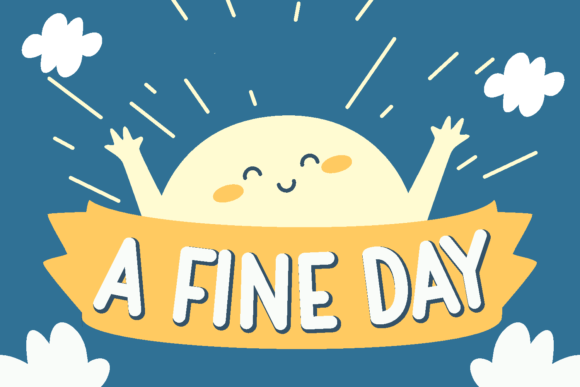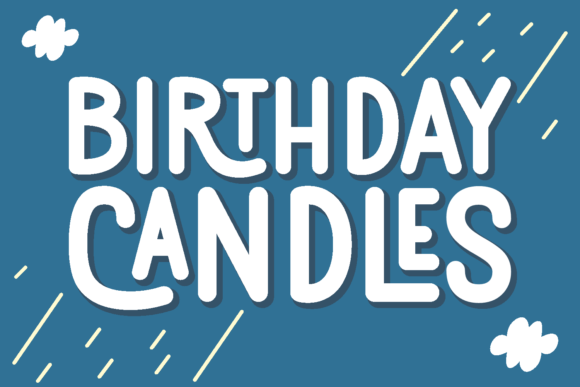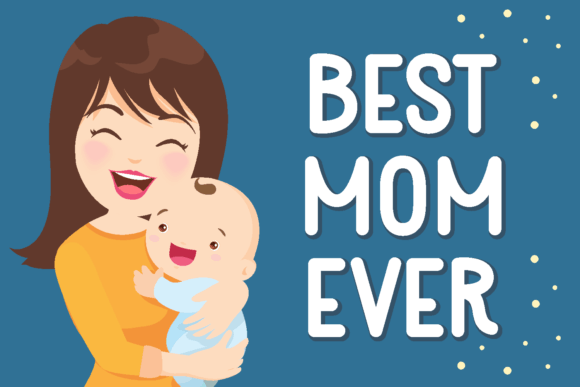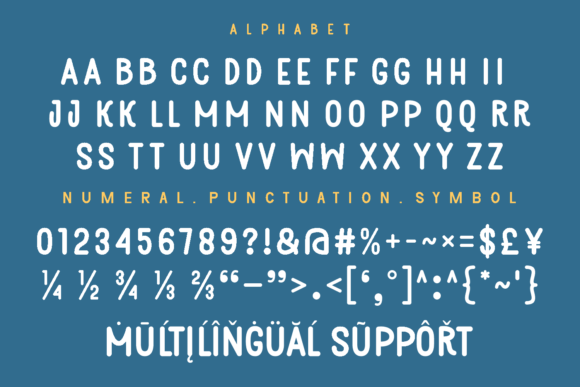
The Double Cartoon Font: A Graffiti Game-Changer for Designers
I’ll never forget the moment I stumbled upon the perfect font for a graffiti-inspired client project. I had been searching for what felt like hours, scrolling through endless font libraries and design forums, but nothing seemed quite right. That was until I discovered the Double Cartoon font – a vibrant, eclectic amalgamation of typography that breathed life into urban narratives. In this article, I’ll share my experience with this amazing font, its features, and how to make the most of it in your designs.
- ✅ The Double Cartoon font’s unique blend of playfulness and mystery is perfect for adding a touch of urban charm to any design project.
- ✅ Its versatility allows it to work beautifully in a variety of contexts, from bold headlines to intricate graffiti-style illustrations.
- ✅ The font’s extensive character set and OpenType features make it easy to experiment with different styles and effects.
- ⚠️ Some characters may require manual kerning to achieve optimal spacing and readability.
- ⚠️ The font’s bold style can be overwhelming if not balanced with lighter elements in the design.
The Double Cartoon font was inspired by the vibrant street art of urban landscapes. Its creator, a freelance designer with a passion for graffiti and urban culture, wanted to capture the energy and playfulness of city streets in a font that could be used by designers and artists around the world. The result is a font that is both bold and whimsical, perfect for adding a touch of urban charm to any design project.
| Font Name | Double Cartoon Font |
| Author | Ade (7NTypes) |
| What is the Double Cartoon font best used for? | The Double Cartoon font is best used for design projects that require a bold, urban look, such as graffiti-inspired illustrations, streetwear branding, and urban-themed advertising. |
| Is the Double Cartoon font suitable for body text? | No, the Double Cartoon font is best used for headlines and titles, as its bold style can be overwhelming for body text. |